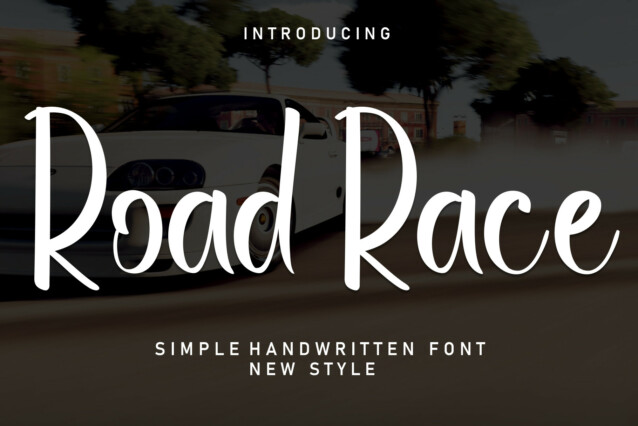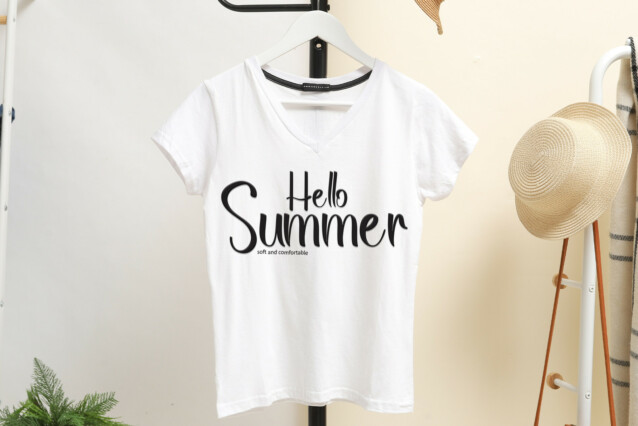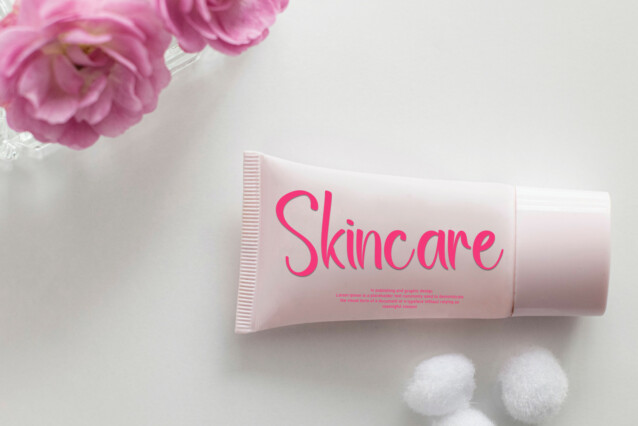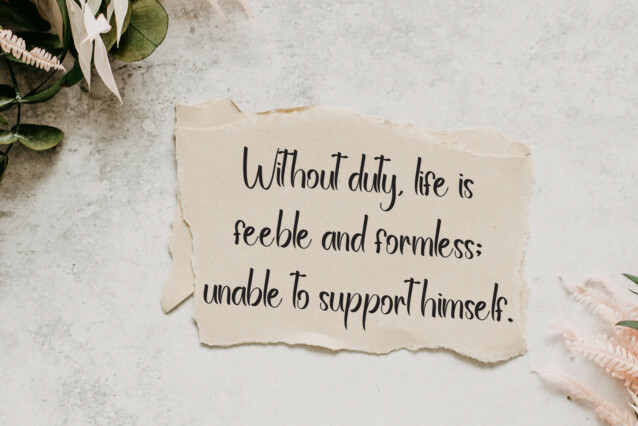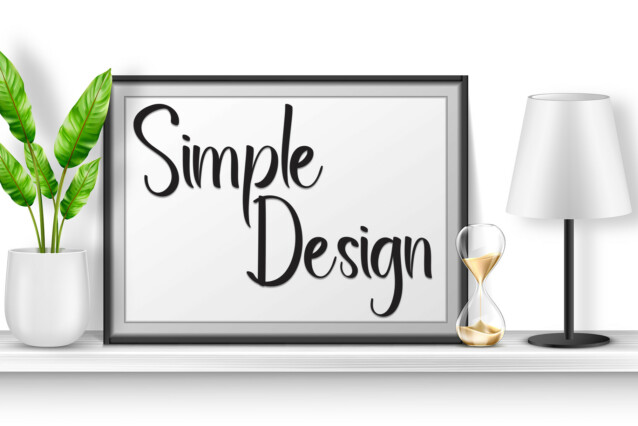
Road Race Handwritten Font
Road Race Handwritten Font is a sweet and friendly handwritten display font. Cute and fun, this font is ideal for writing wedding invitations, cards, or any other design that might need a playful touch!